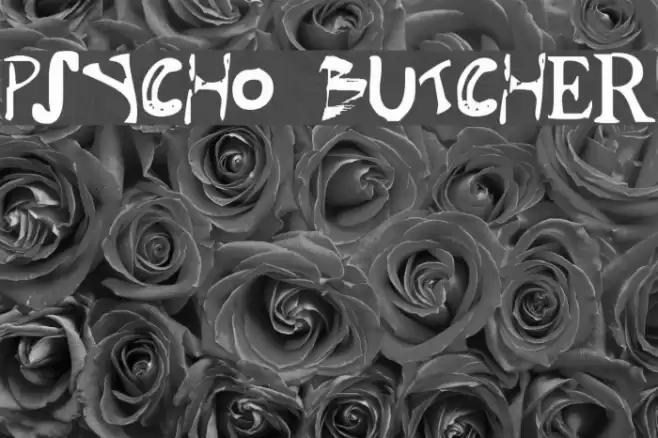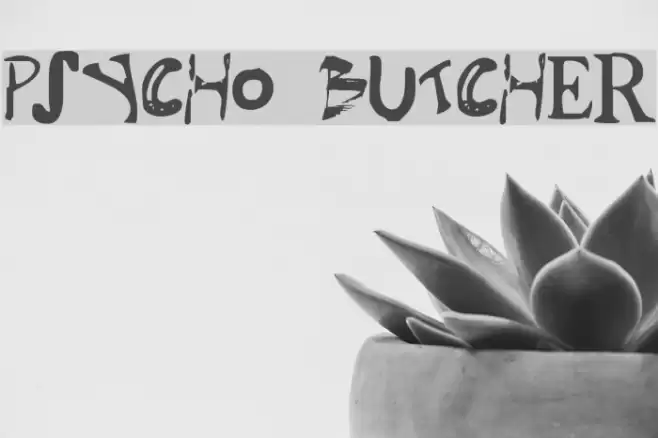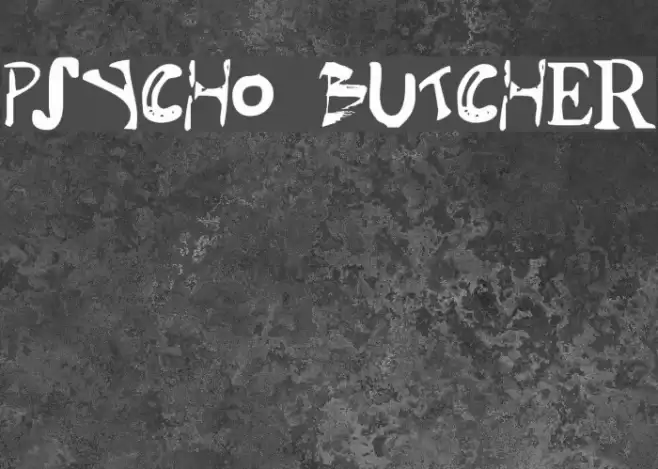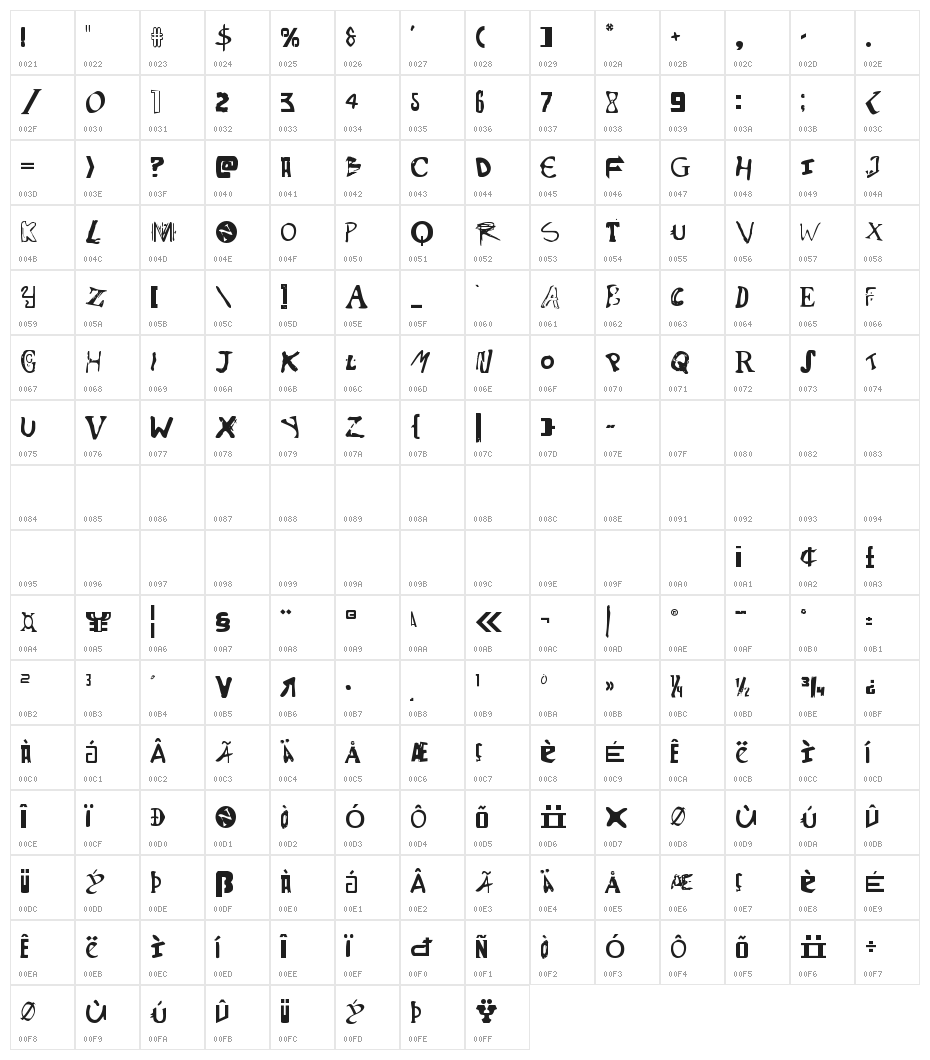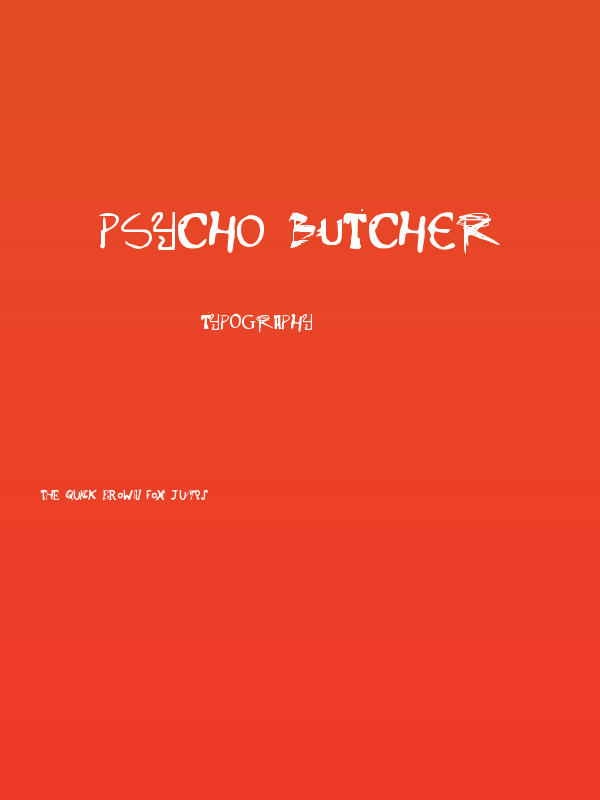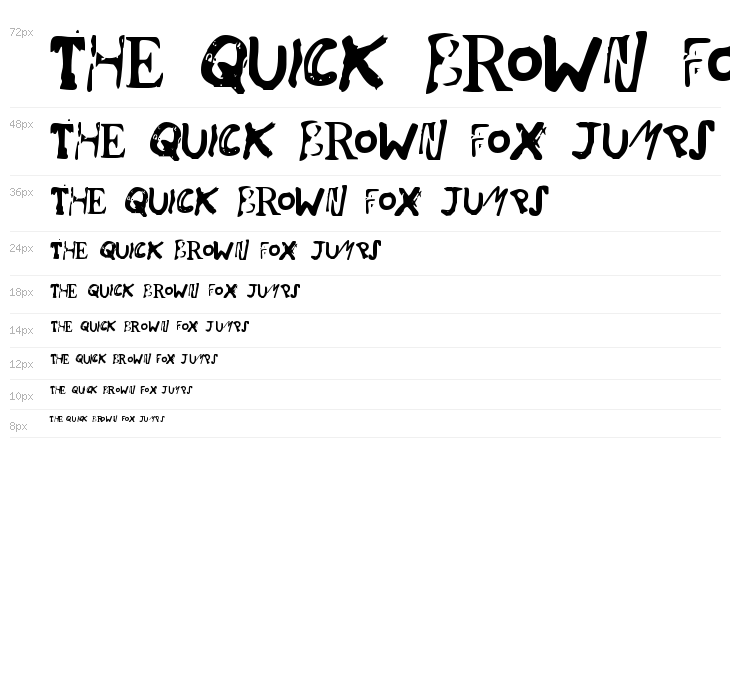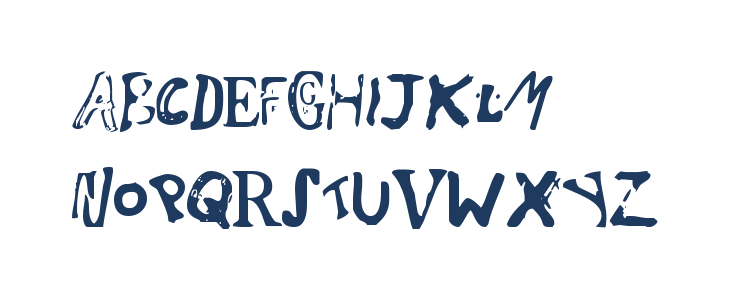
Psycho Butcher Font
Psycho Butcher Description
This font features a chaotic and distressed style, with each character appearing as if it has been roughly cut or torn. The uppercase and lowercase letters exhibit a variety of textures and irregular shapes, giving the font a raw and edgy look. The numbers and special characters maintain this distressed aesthetic, contributing to an overall sense of disorder and unpredictability. The font's unique appearance makes it stand out, with each letter having its own distinct personality, often incorporating jagged edges and uneven strokes. This font is ideal for projects that require a bold, unconventional, and artistic touch.
A chaotic and distressed font with irregular, edgy characters from Uncategorized fonts.
- Proposed Projects: Ideal for horror-themed designs, album covers, posters, and edgy branding projects.